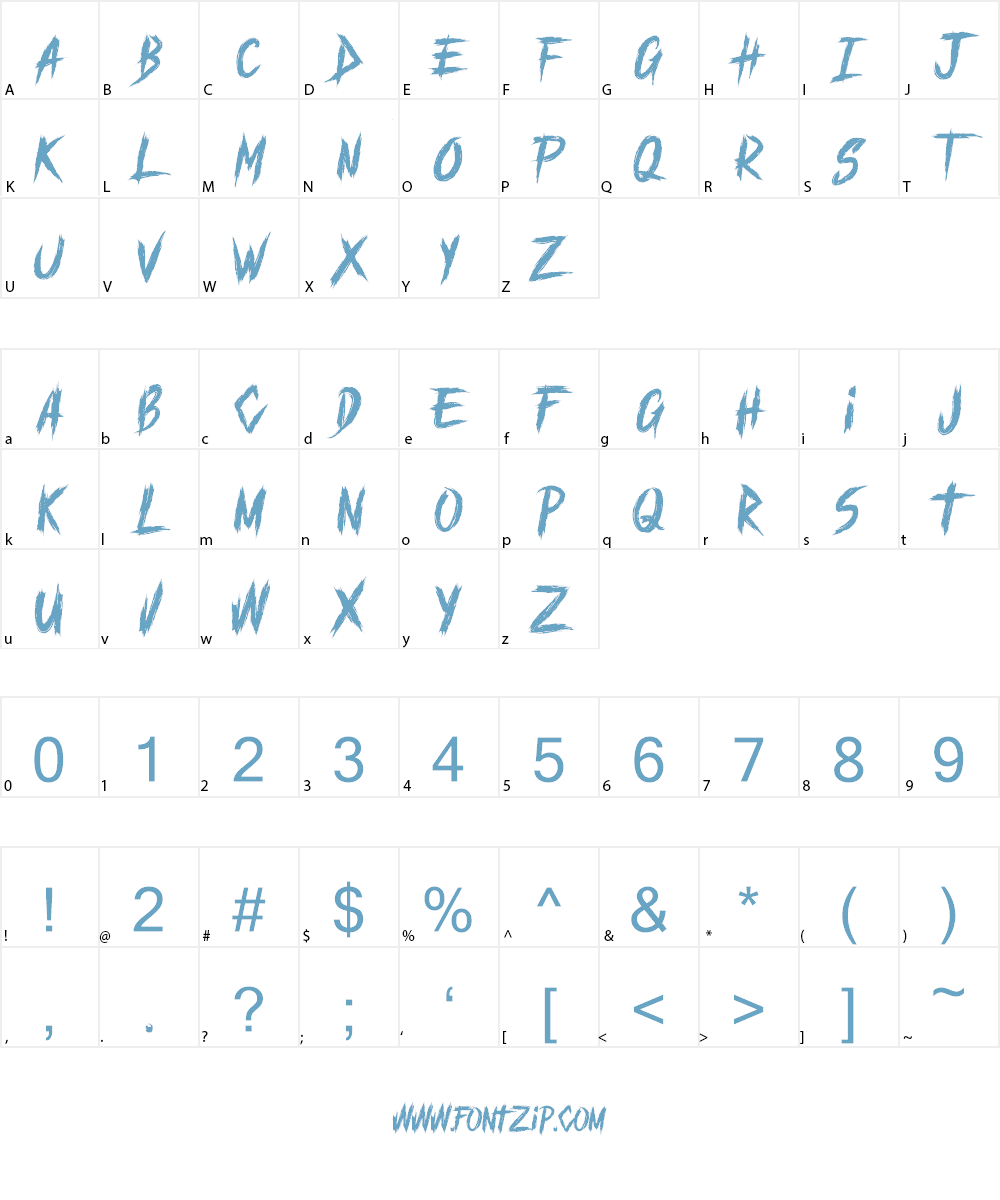
-Introducing-
MAYHEND Typeface
A Thrashy-Bold Style typeface perfect for your messy project need. It could also fit on a horror, modern grunge designs.
MAYHEND Typeface
A Thrashy-Bold Style typeface perfect for your messy project need. It could also fit on a horror, modern grunge designs.